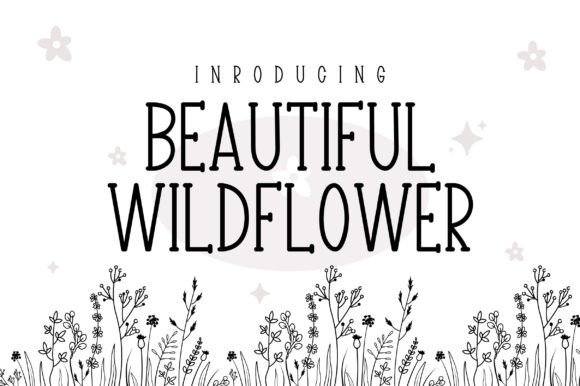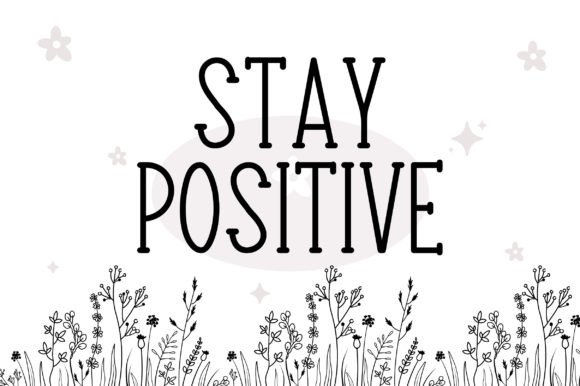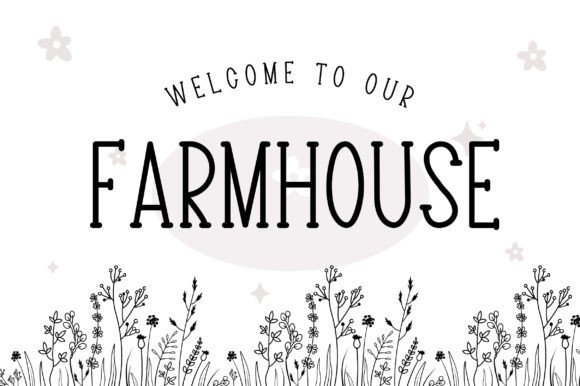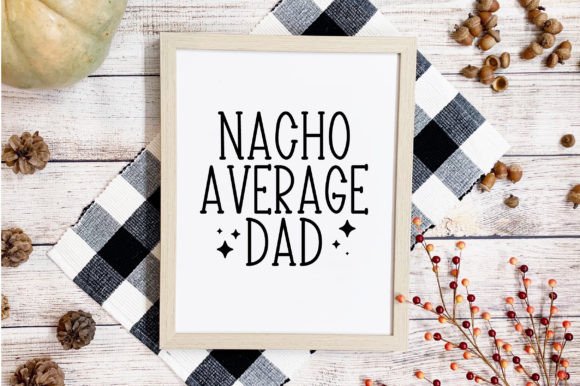
About the Beautiful Wildflower Font
Elevate your designs with Beautiful Wildflower Font, a font that combines sophistication with readability. Beautiful Wildflower is a charming handwritten serif font, exuding delicacy and grace. Its gentle curves and intricate details mimic the beauty of wildflowers in bloom. Ideal for adding a touch of elegance to invitations, branding, and stationery, evoking a sense of whimsy and natural beauty in every design.
Beautiful Wildflower Font Usage Examples
Beautiful Wildflower Font Example